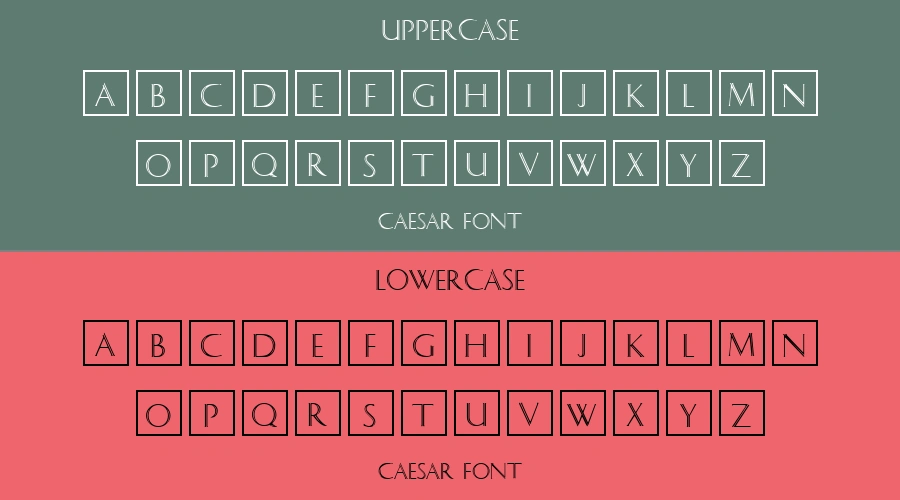
About Caesar Font
Caesar Font embodies typographic excellence through its masterful combination of graceful transitions and longevity. Created for advertising headers, this typeface delivers exceptional durability and market credibility across all applications. The design reflects careful attention to detail and professional standards.
Advanced capabilities include distinctive tapered strokes and versatile terminal forms, giving designers creative control. When used in running text, Caesar Font exhibits remarkable small text clarity. The harmonious balance between ascender height and character sets this typeface apart.